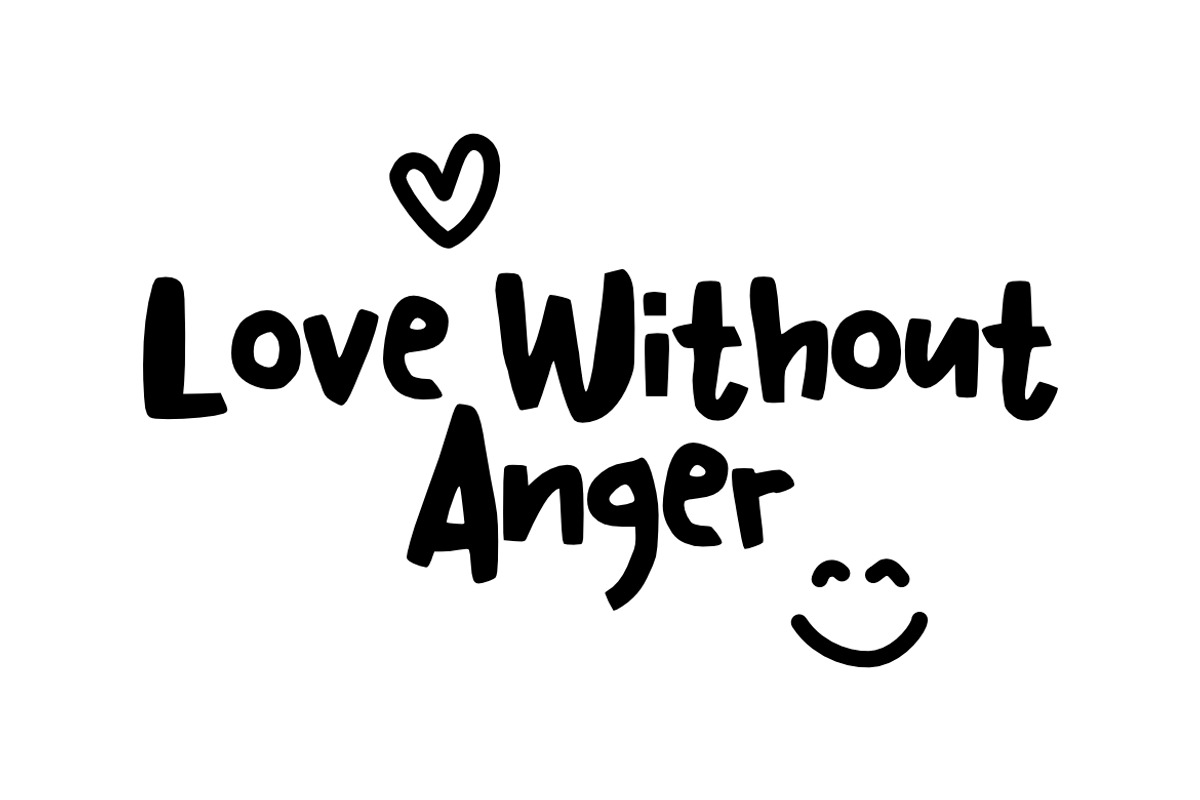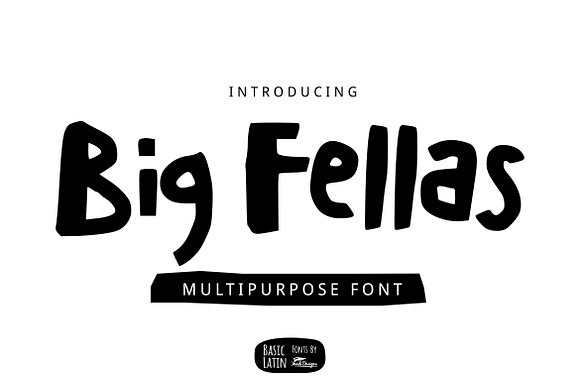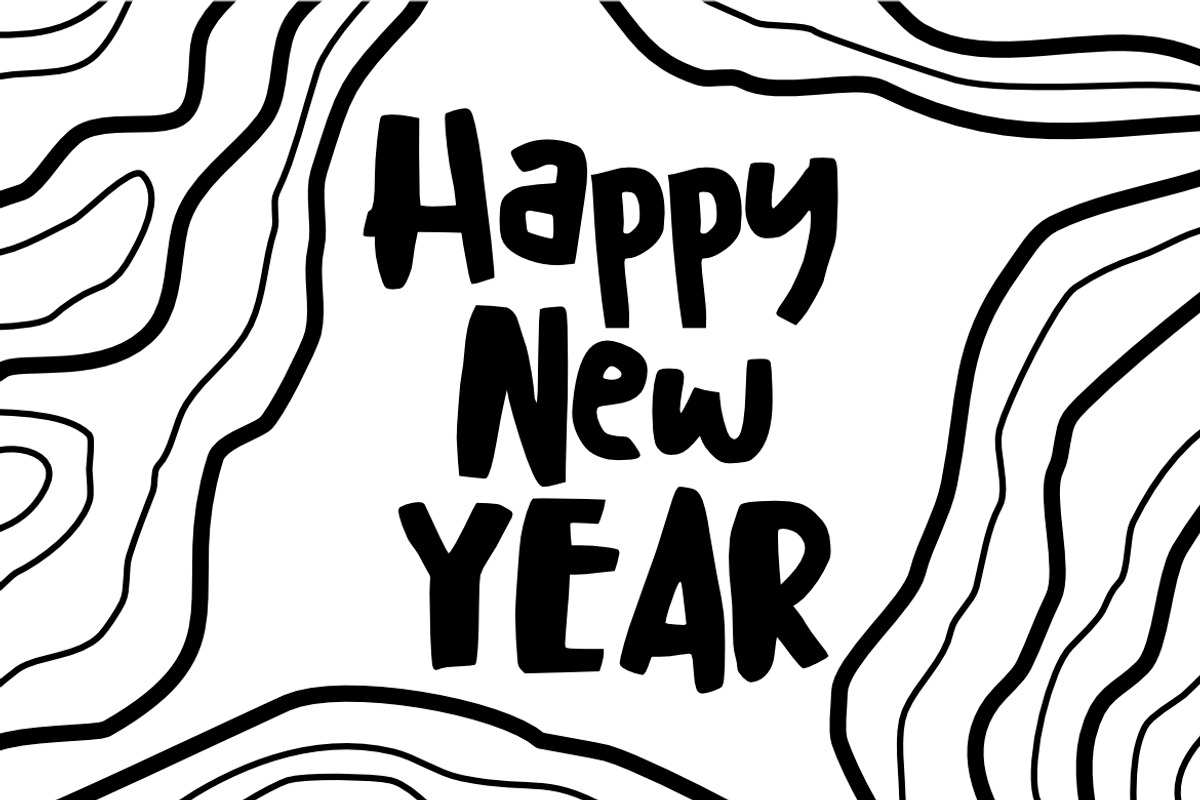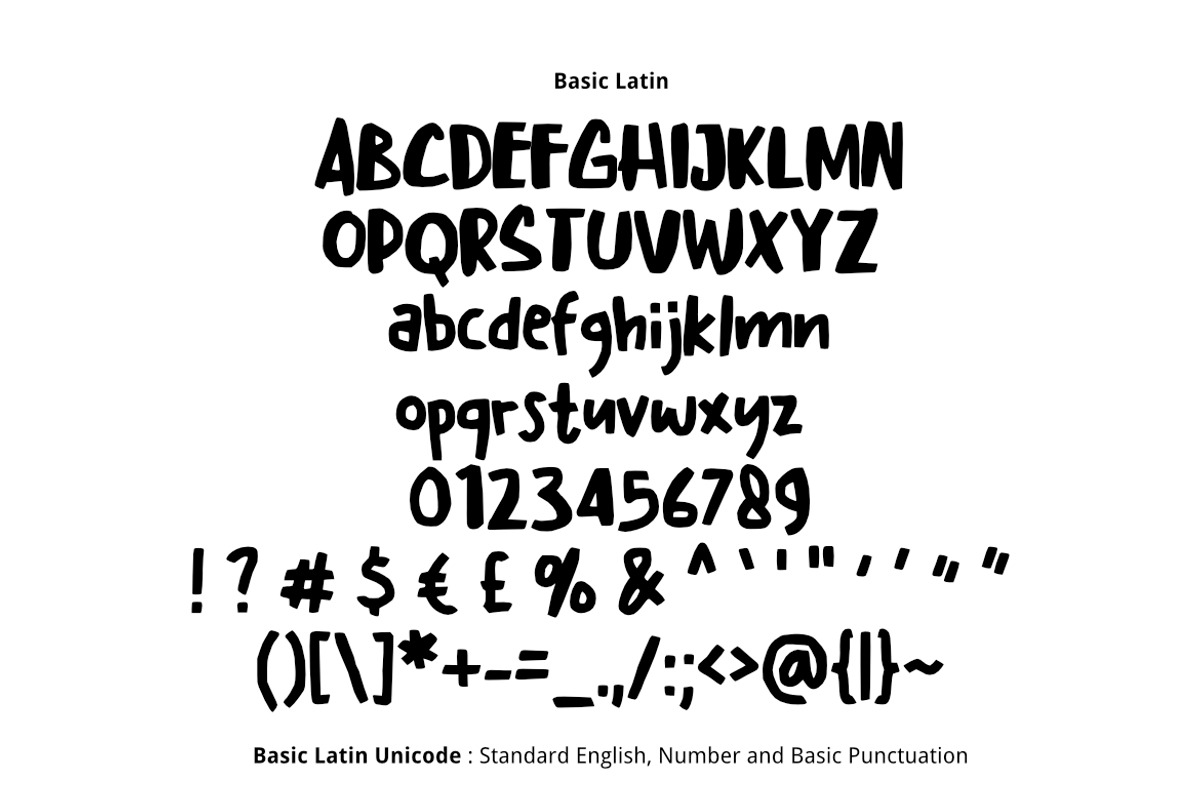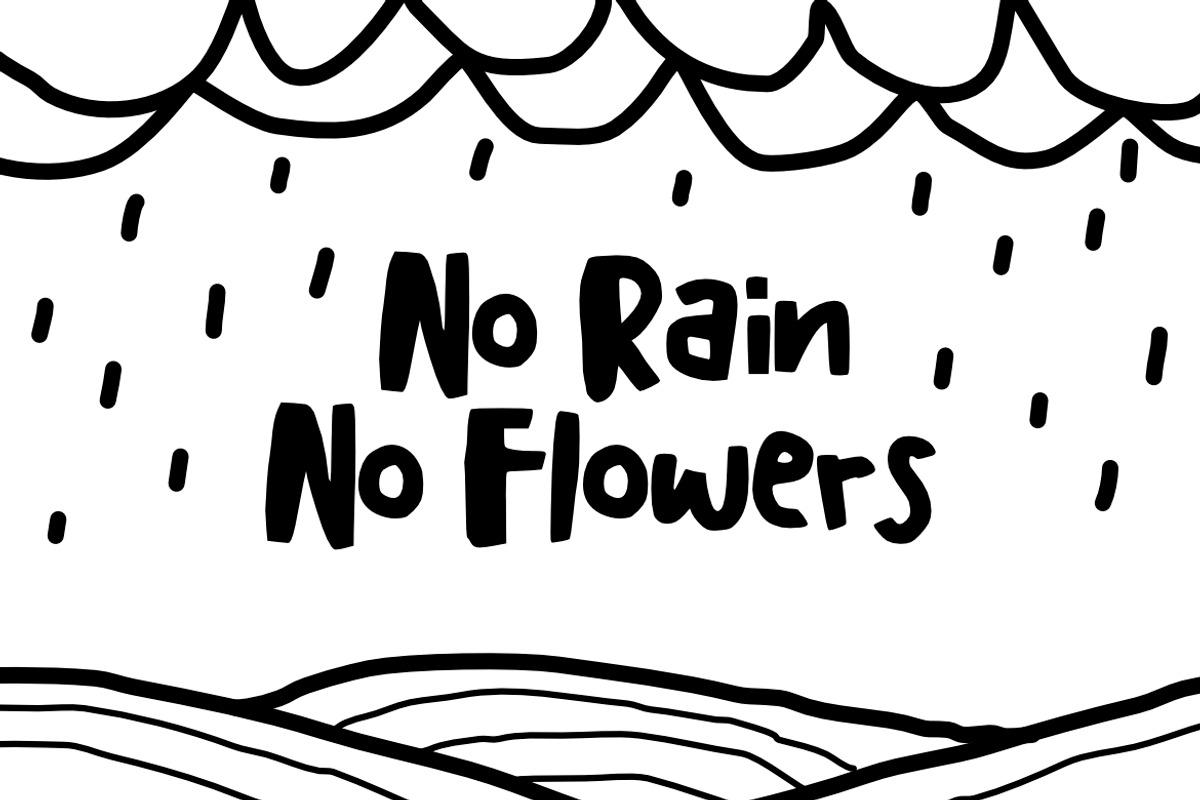
Big Fellas Cute Font
Simple cute multipurpose font , suitable for many project children book, quotes, logo , heading , title etc.
Why Big Fellas Cute Font is worth a look
Big Fellas Cute Font by YandiDesigns fits naturally into Branding, posters, packaging, typography.